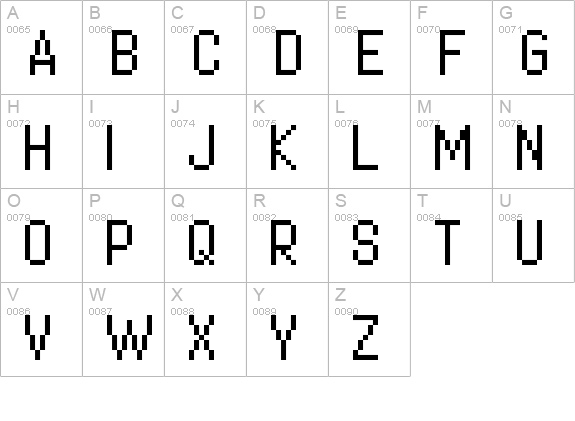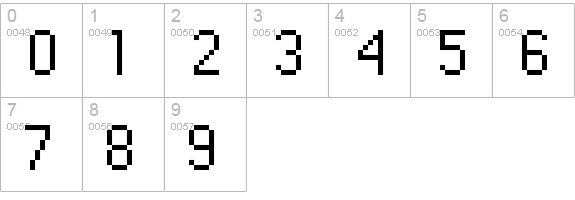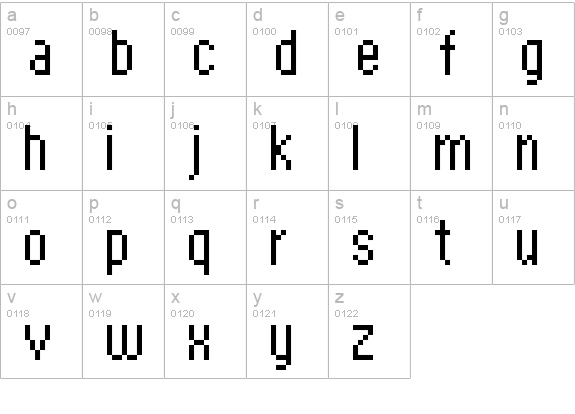
copy 09_56 Font Details
Introducing copy 09_56 font, a beautiful and versatile typeface that will elevate your design projects to a whole new level. This modern and elegant font is perfect for branding, advertising, packaging, and more. With its clean lines and sleek style, copy 09_56 font is sure to make a statement. The best part? It's completely free to download at FontsMarket.com. That's right, you can get your hands on this amazing font without spending a dime. Whether you're a professional designer or just someone who loves to get creative, copy 09_56 font is a must-have addition to your font collection. Don't miss out on this opportunity to enhance your designs with a high-quality, free font. Download copy 09_56 font today and start creating stunning visuals that will impress your audience.